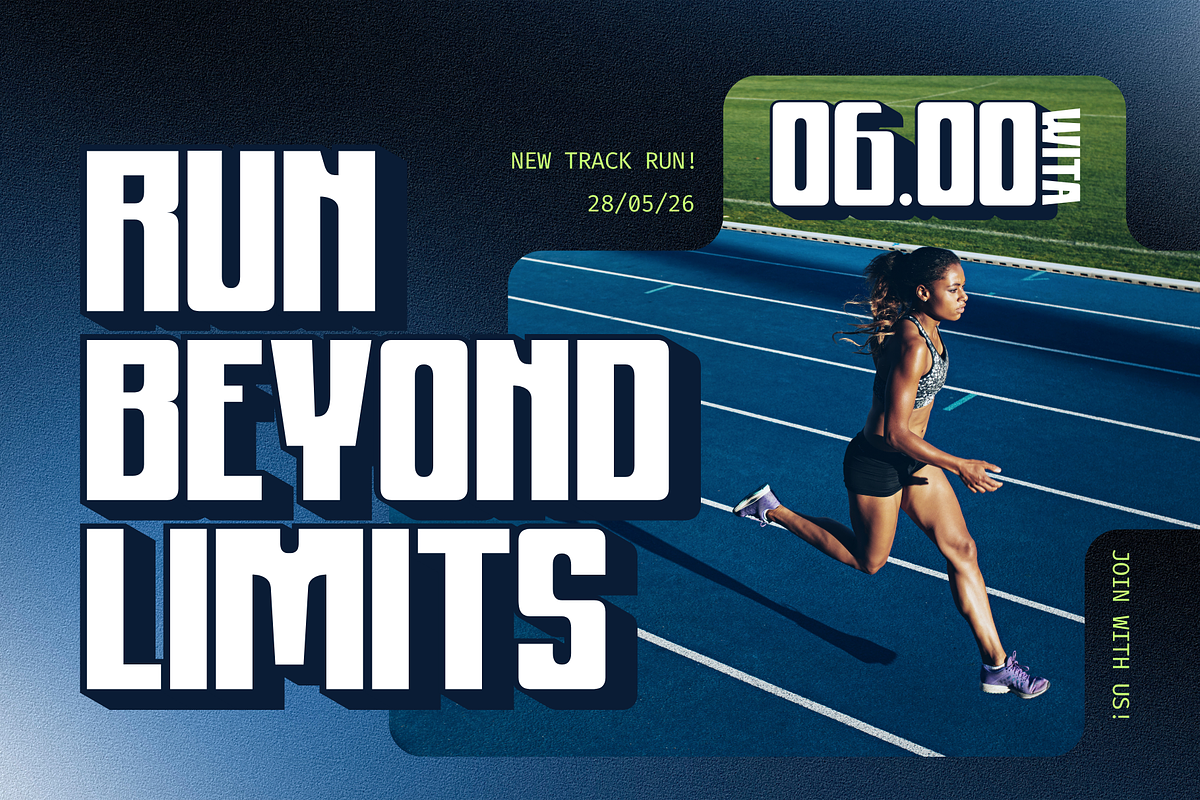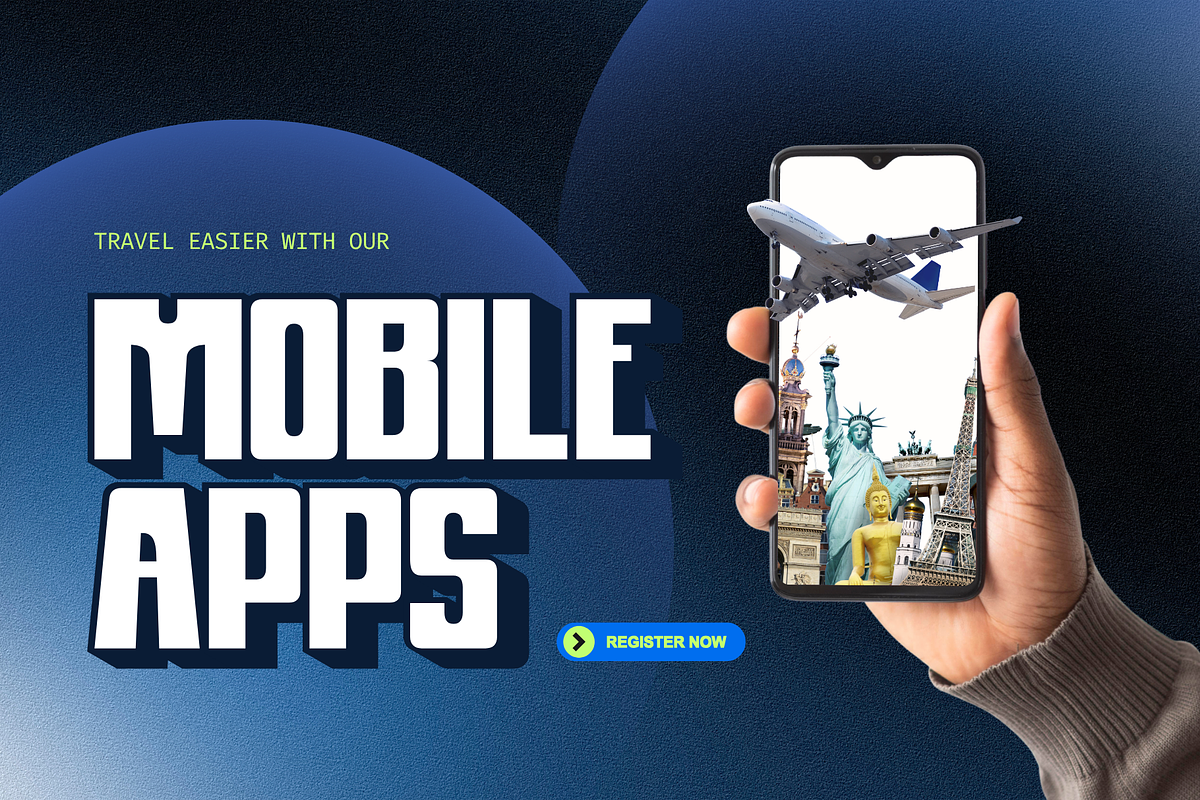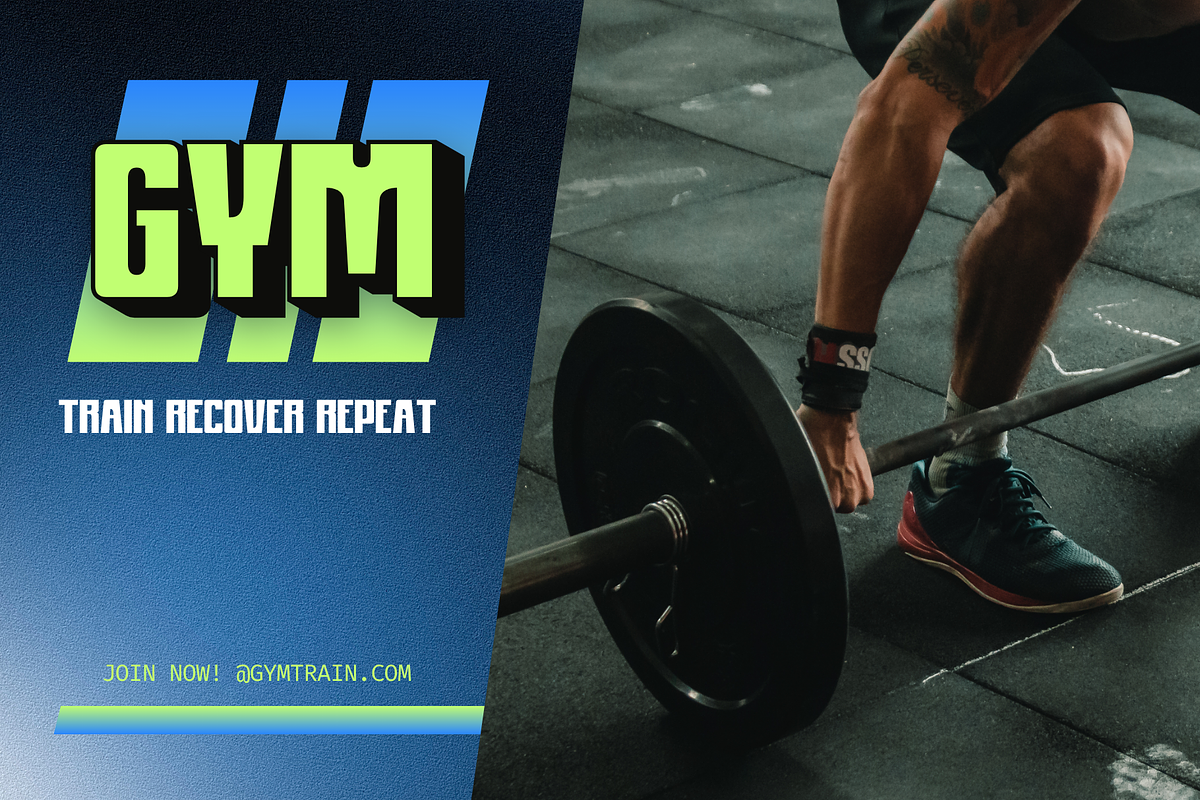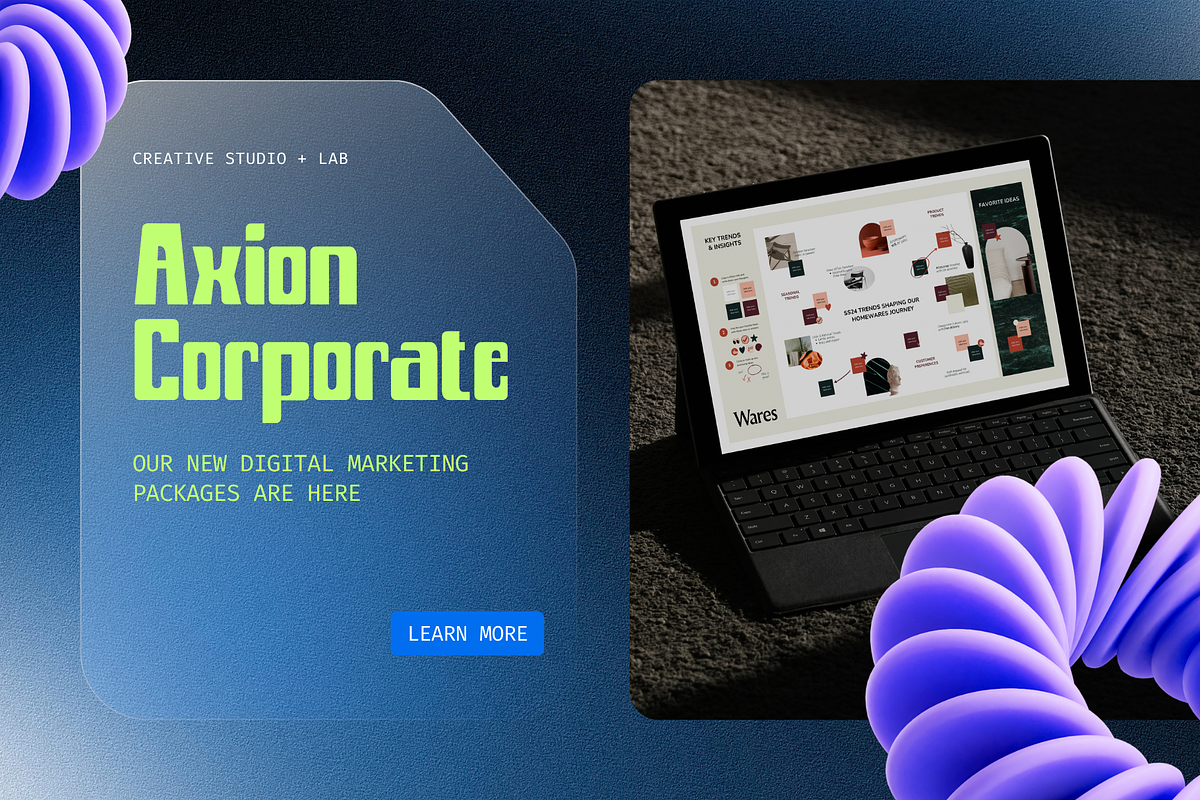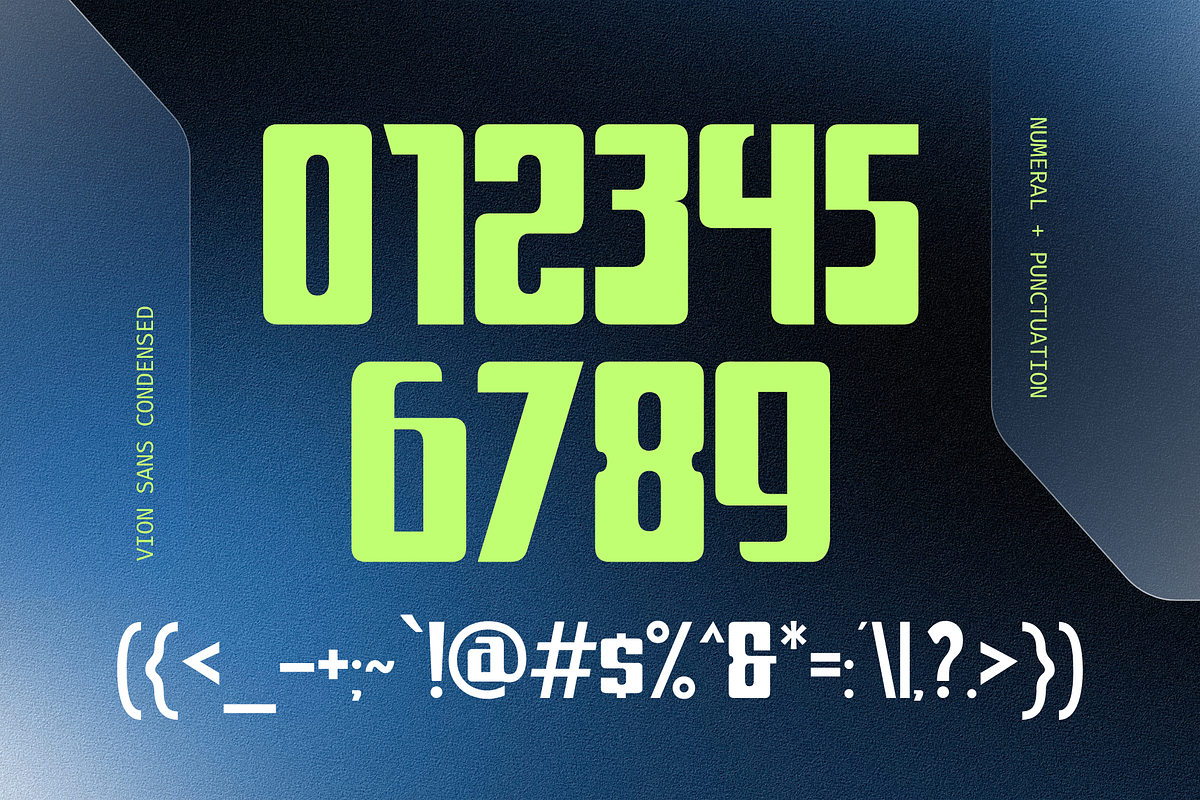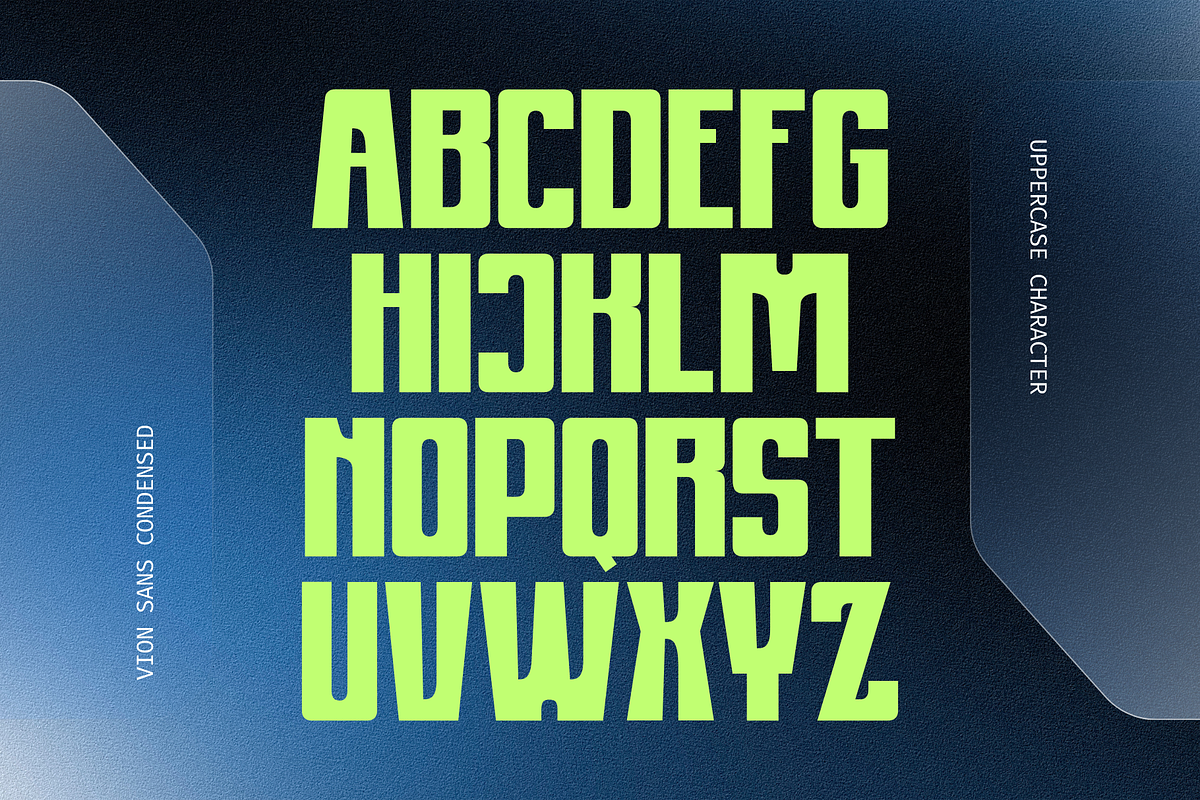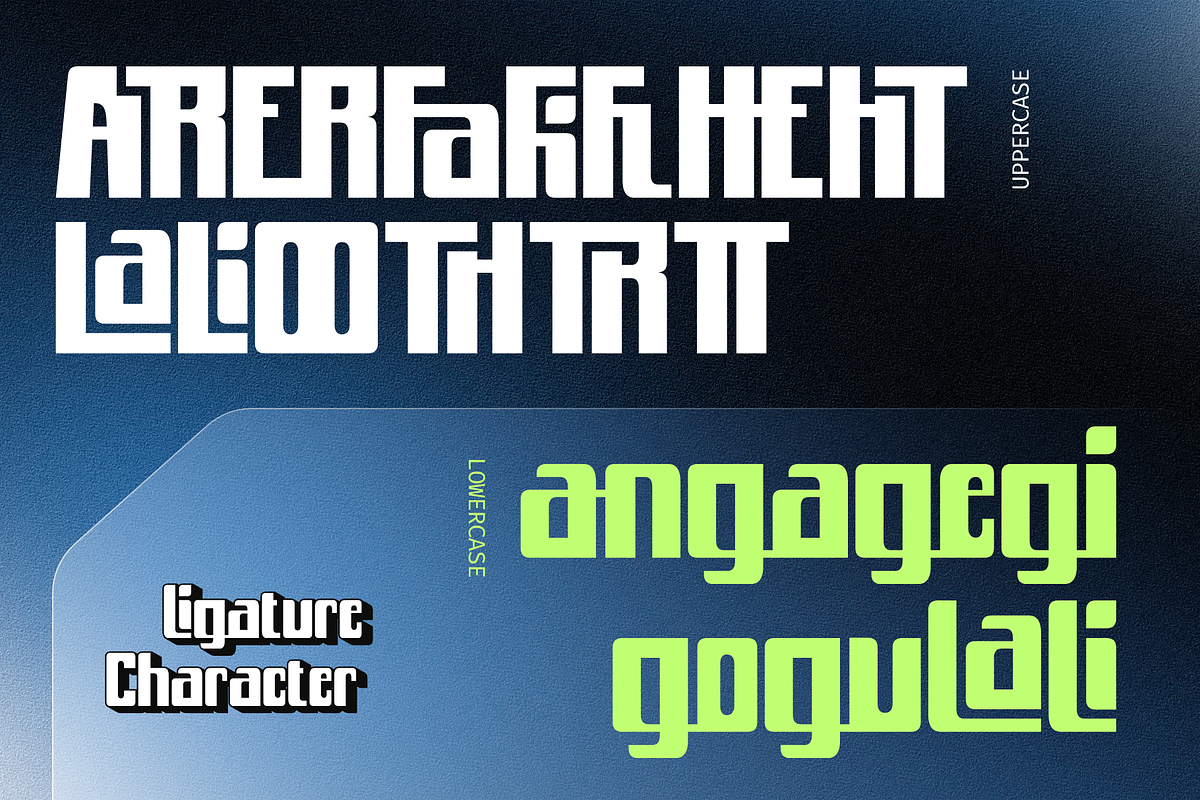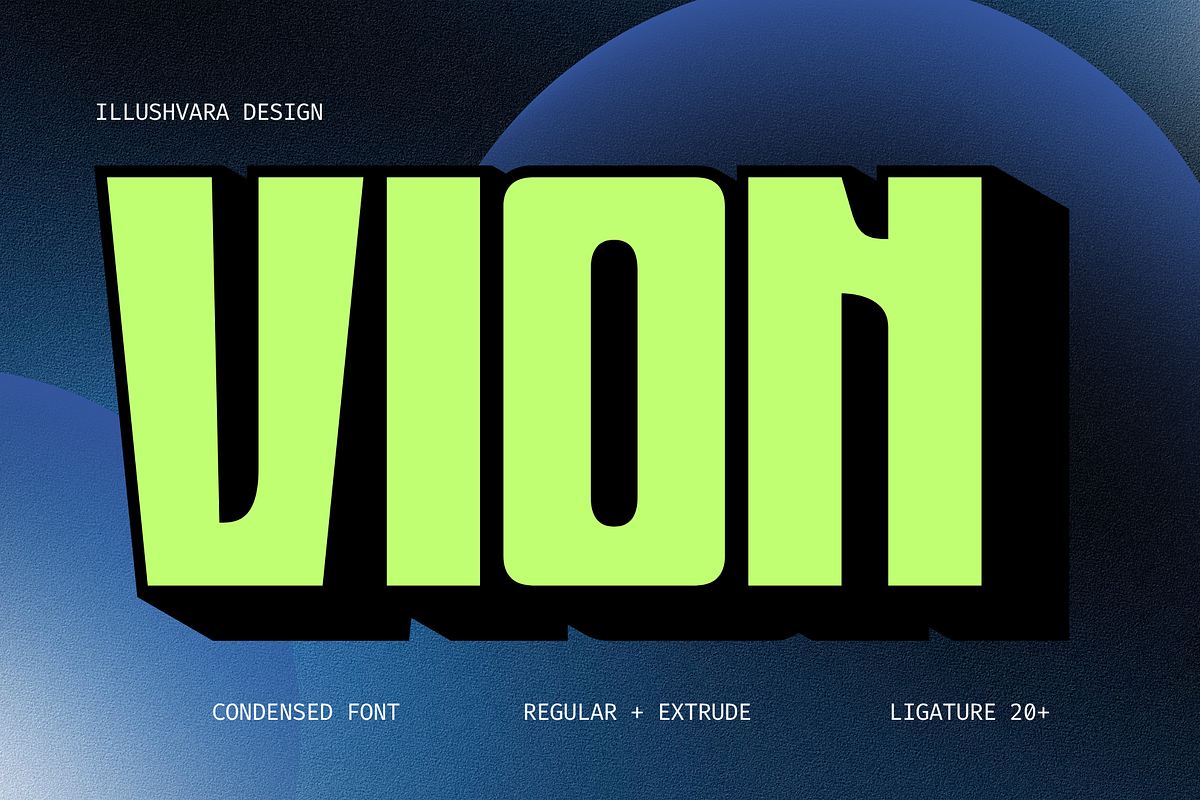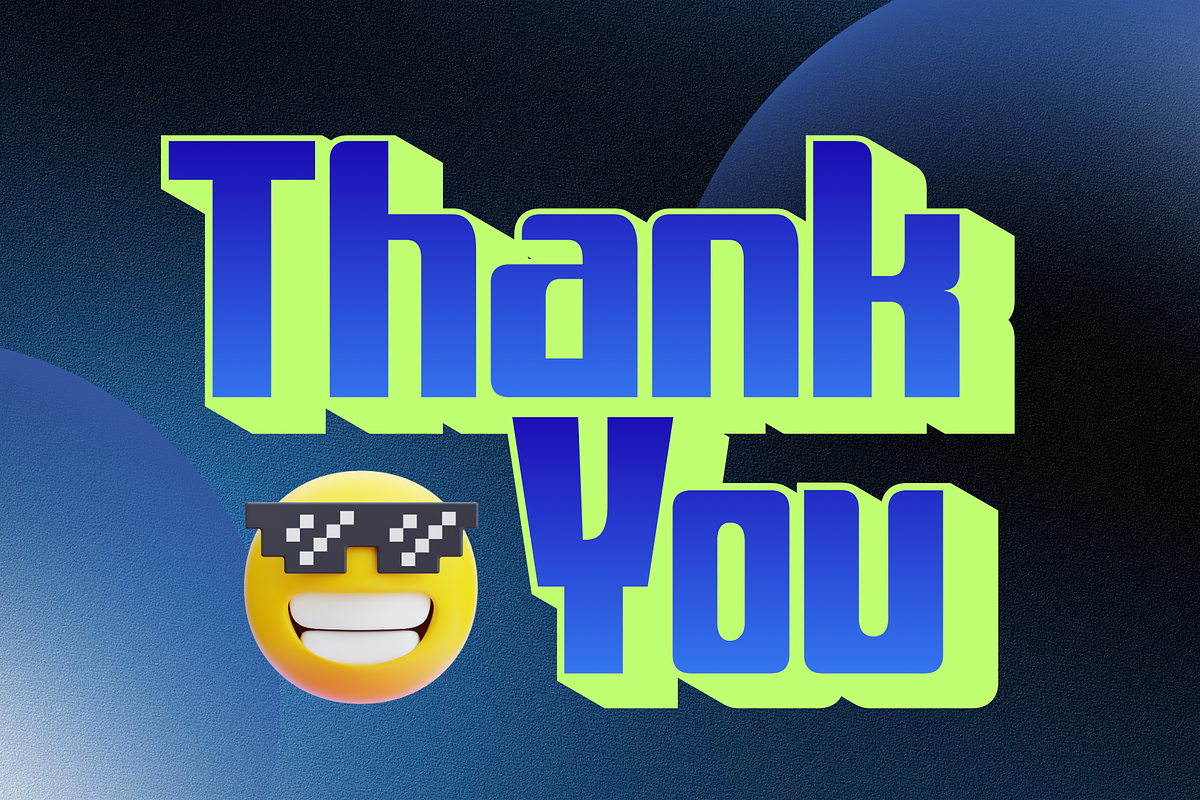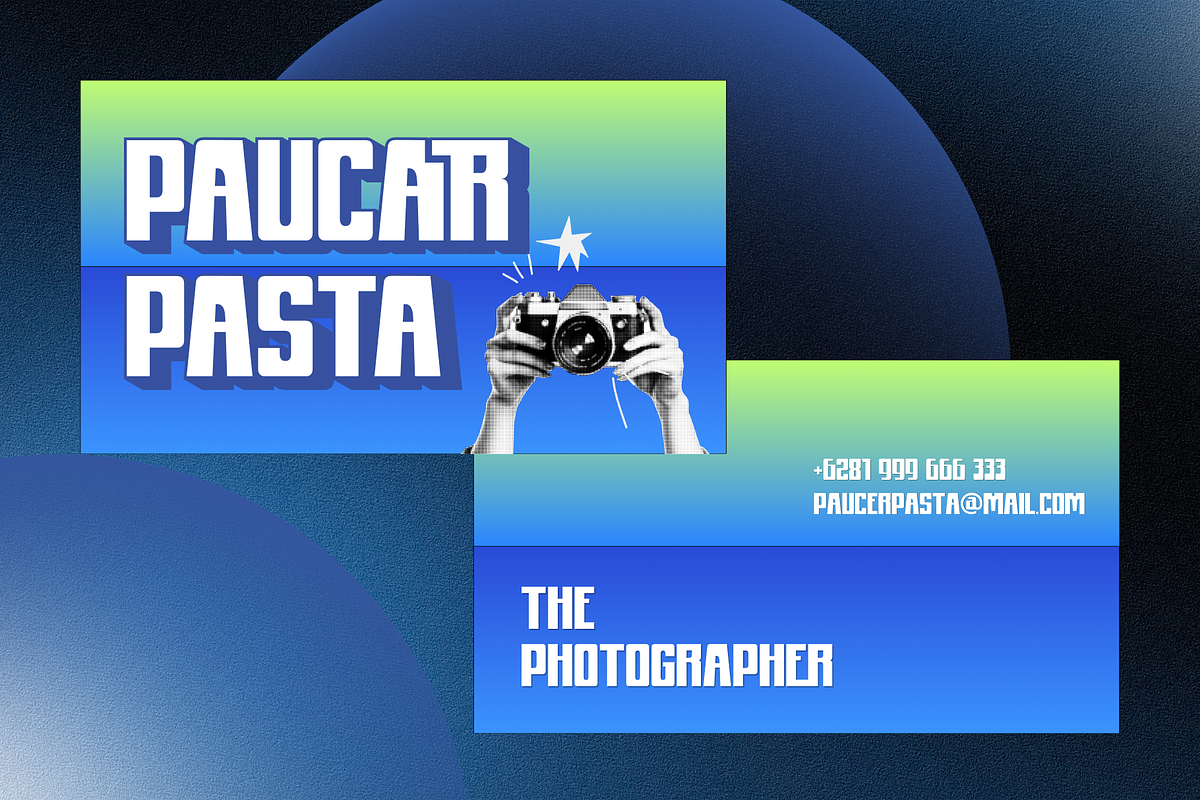
Vion - Modern Condensed Extrude Logo
Say hello to Vion Font
Introducing Vion, a modern condensed bold logo font crafted to deliver strong visual impact with clean proportions and contemporary character. Designed with a sleek and confident appearance, Vion is perfect for branding, logos, sports identity, fashion labels, posters, packaging, editorial layouts, and modern corporate design. This font package includes Regular and Extrude styles, allowing you to create bold dimensional typography with ease. Vion combines versatility and standout aesthetics for projects that demand a powerful and professional look.